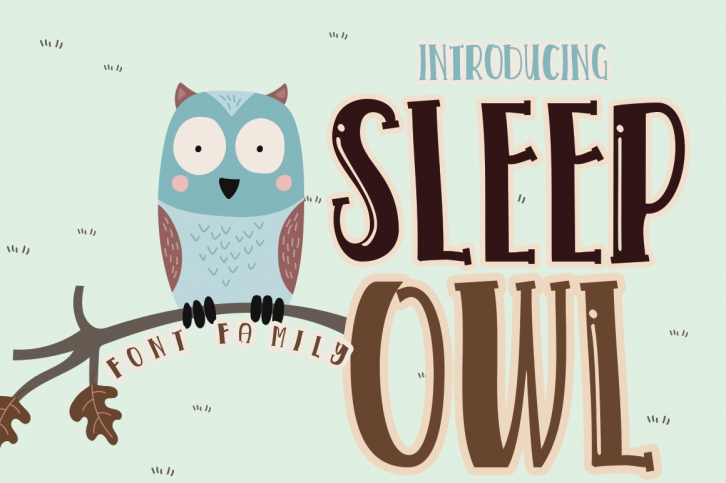
SLEEP OWL is a beautiful font that was designed by HD font studios. It's a great choice for designers and creatives who need such a font. It was released on March 5, 2020 and the file size is 3.49 MB. SLEEP OWL may give a more youthful, expressive and casual look to your project. It is a very beautiful, refined, elegant, and high-quality font.